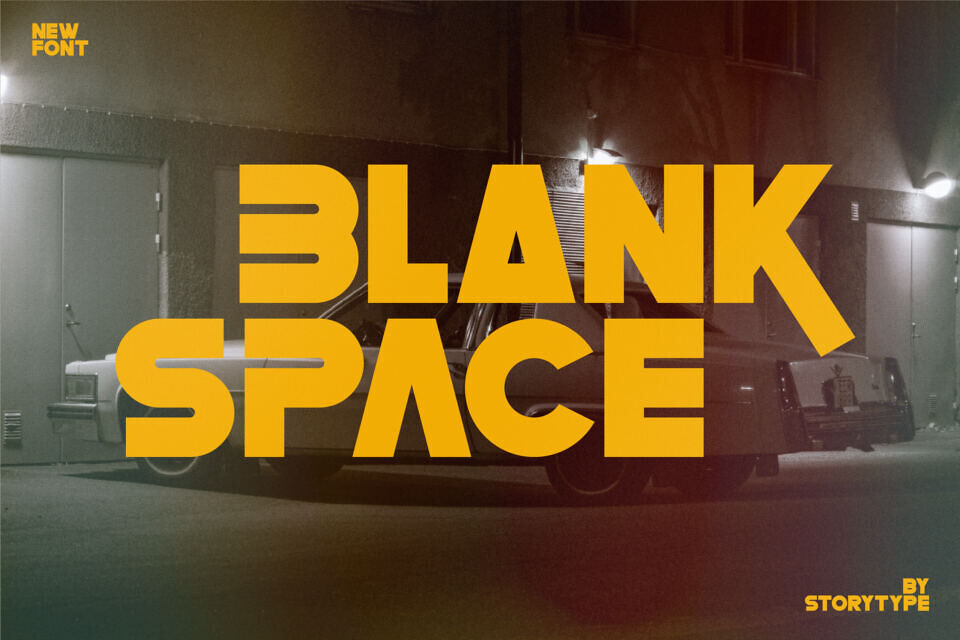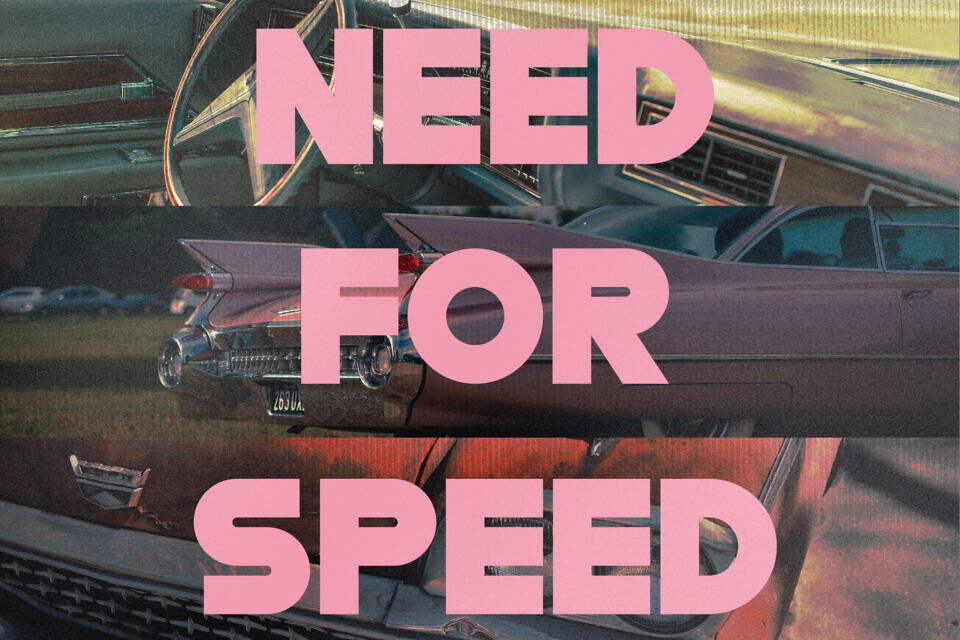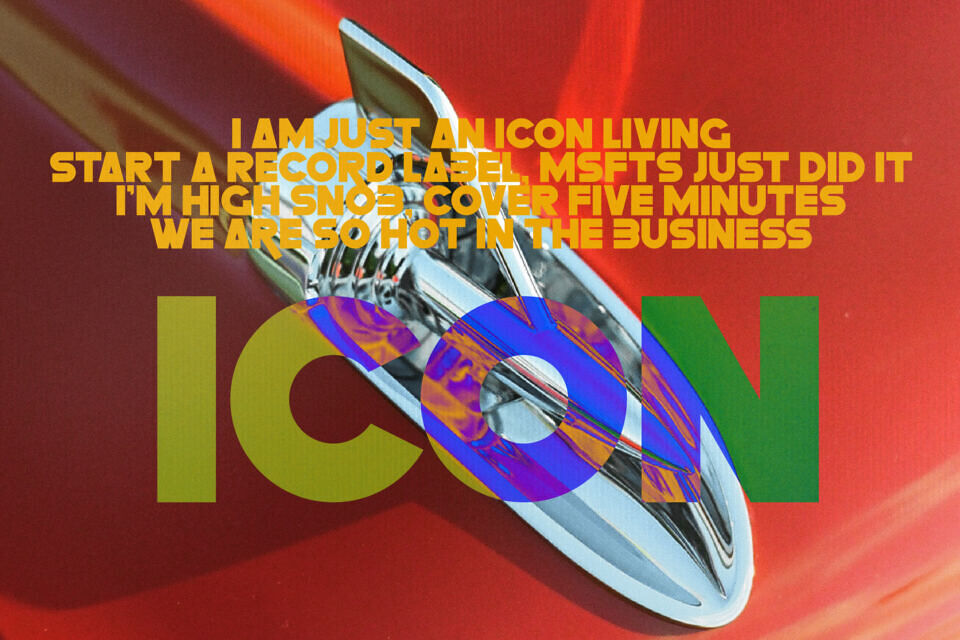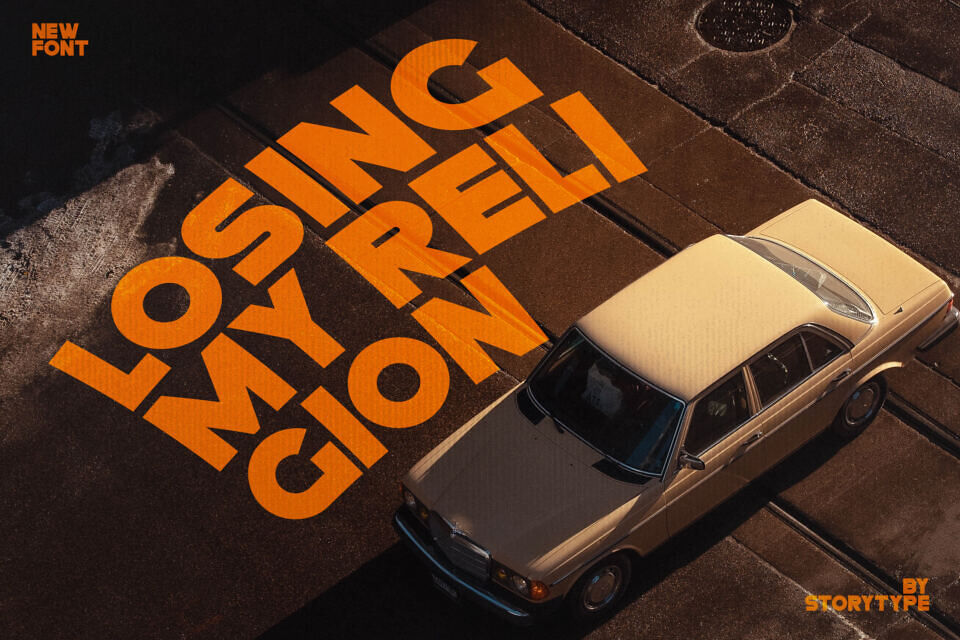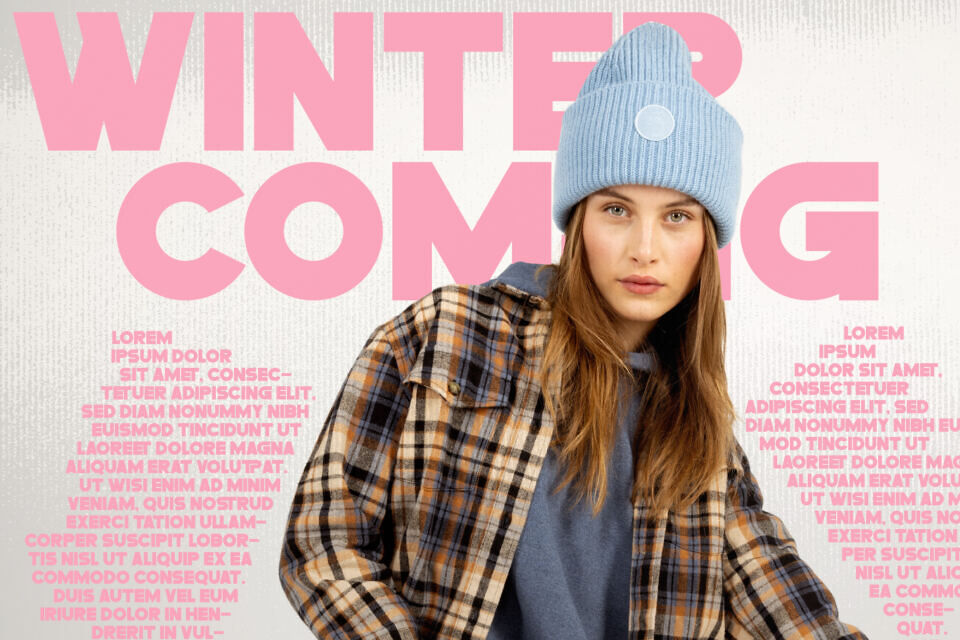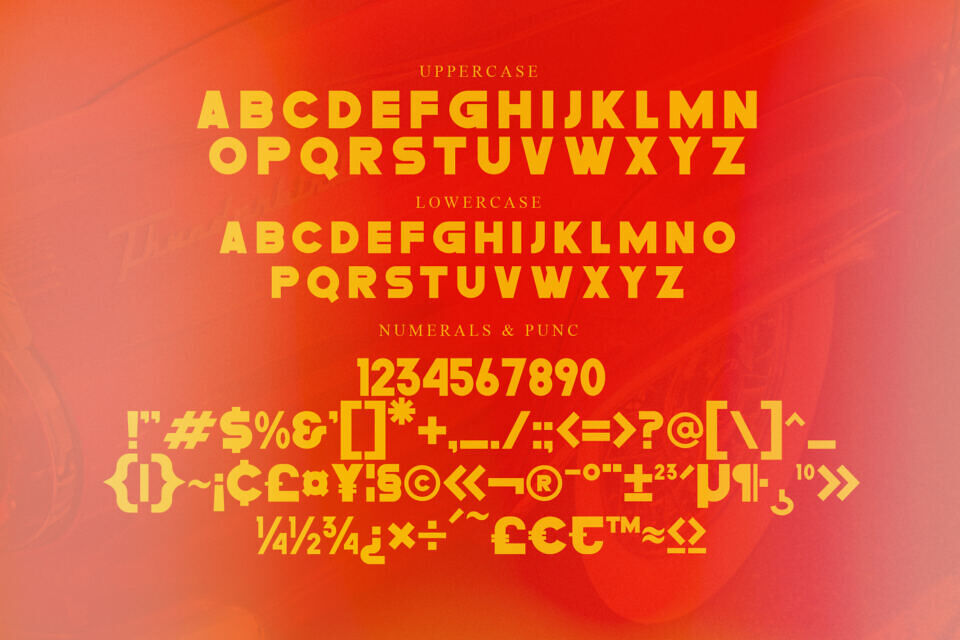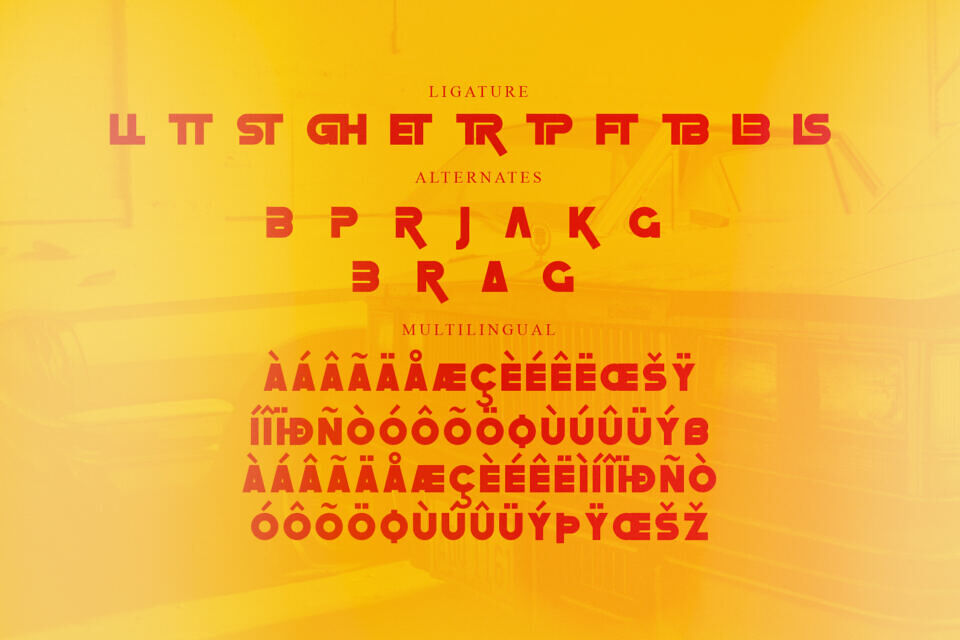
Blank Space Font
Blank Space is a bold and thick lettered display font. It is PUA encoded which means you can access all glyphs and swashes with ease! This font reads as strong, confident, and dynamic and can add tons of stylish character to your designs.